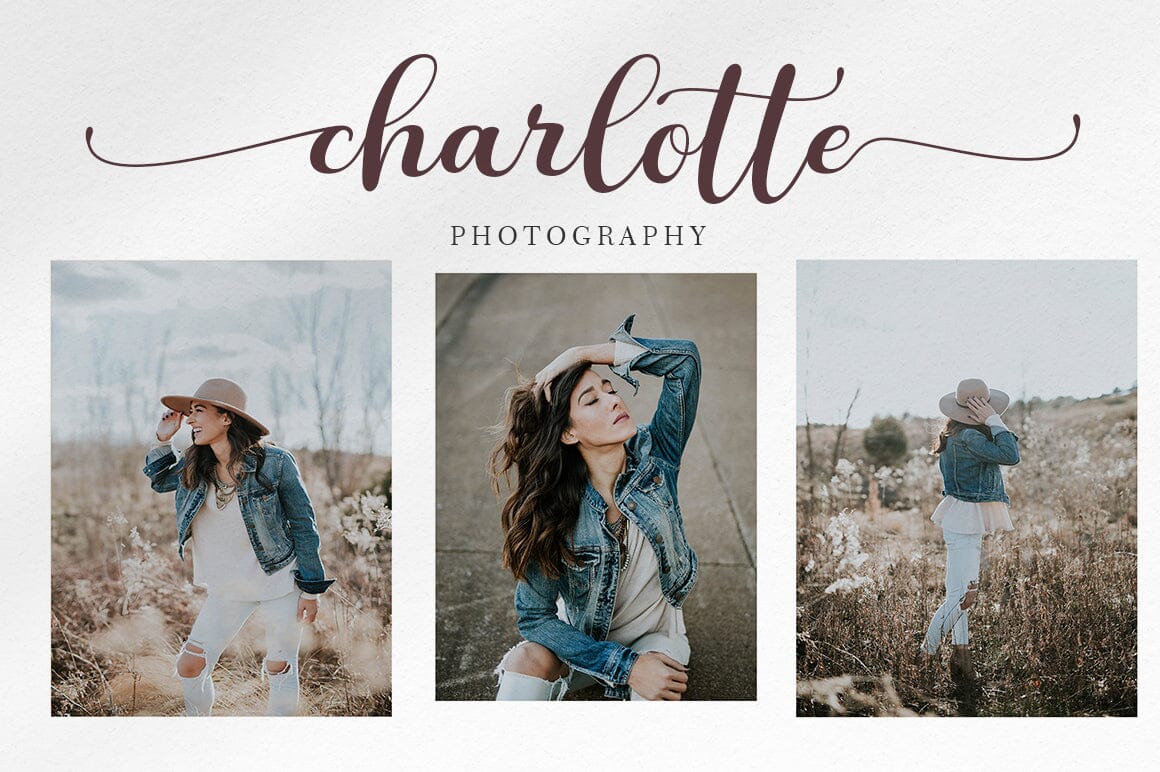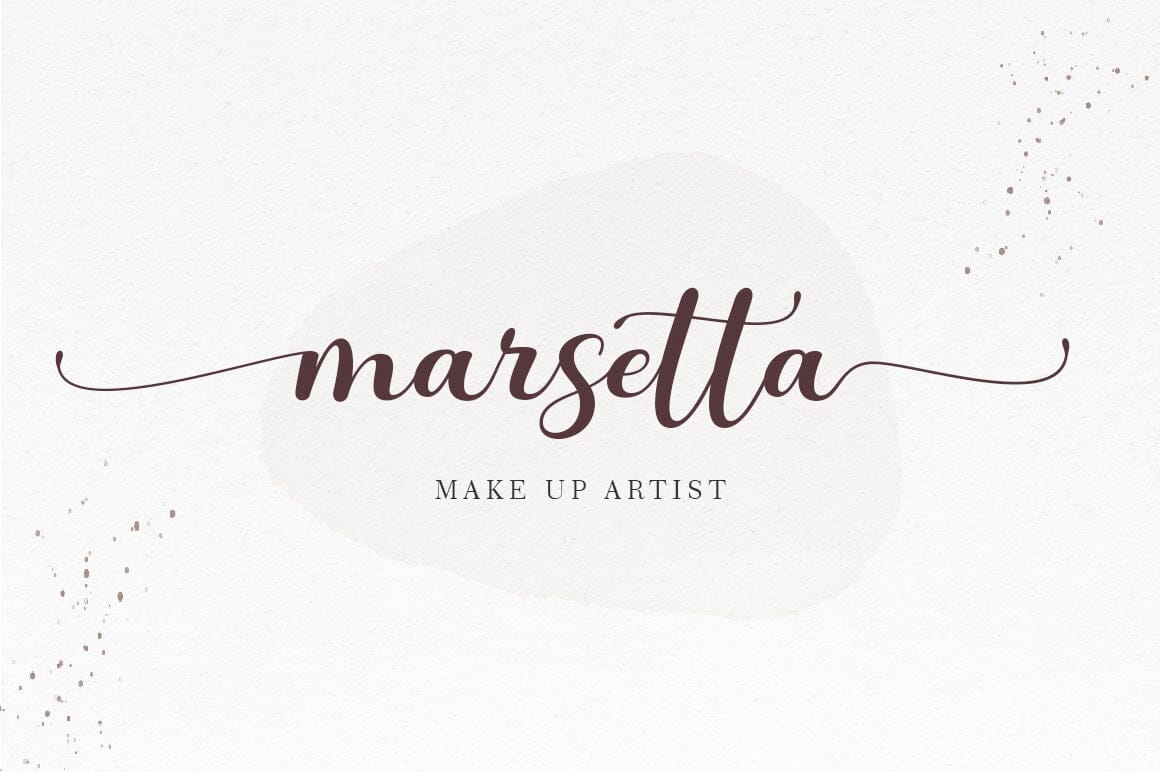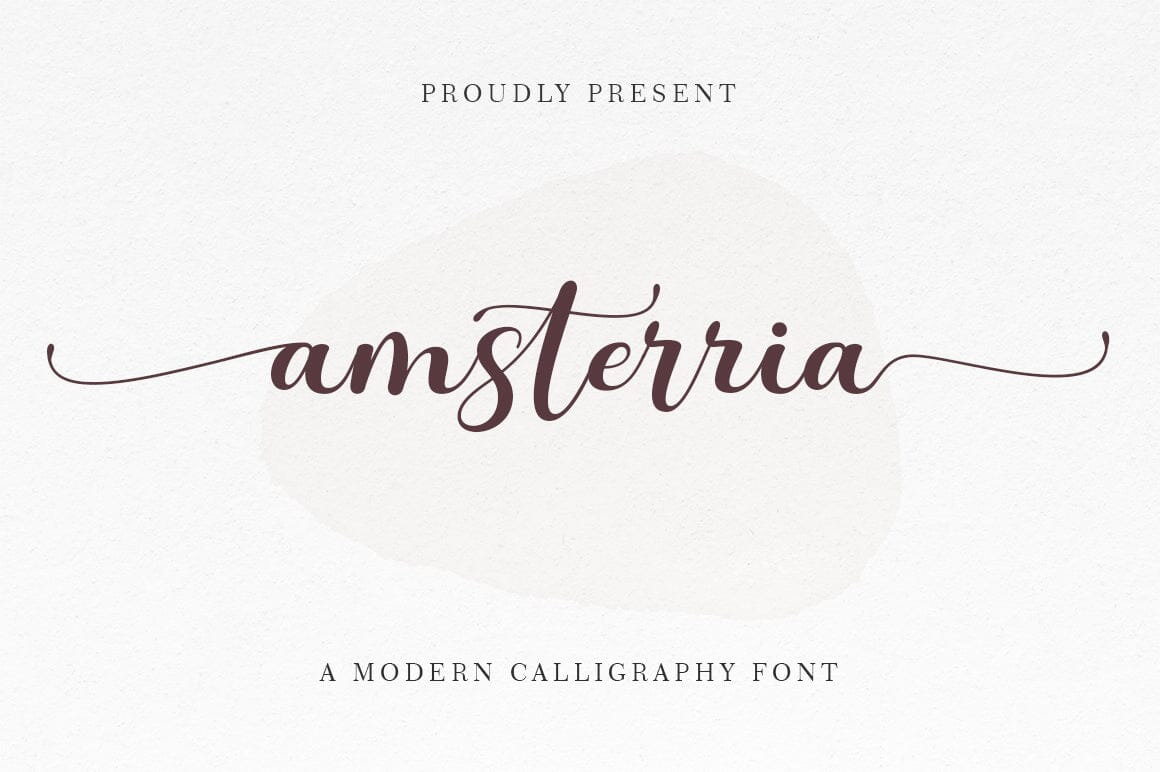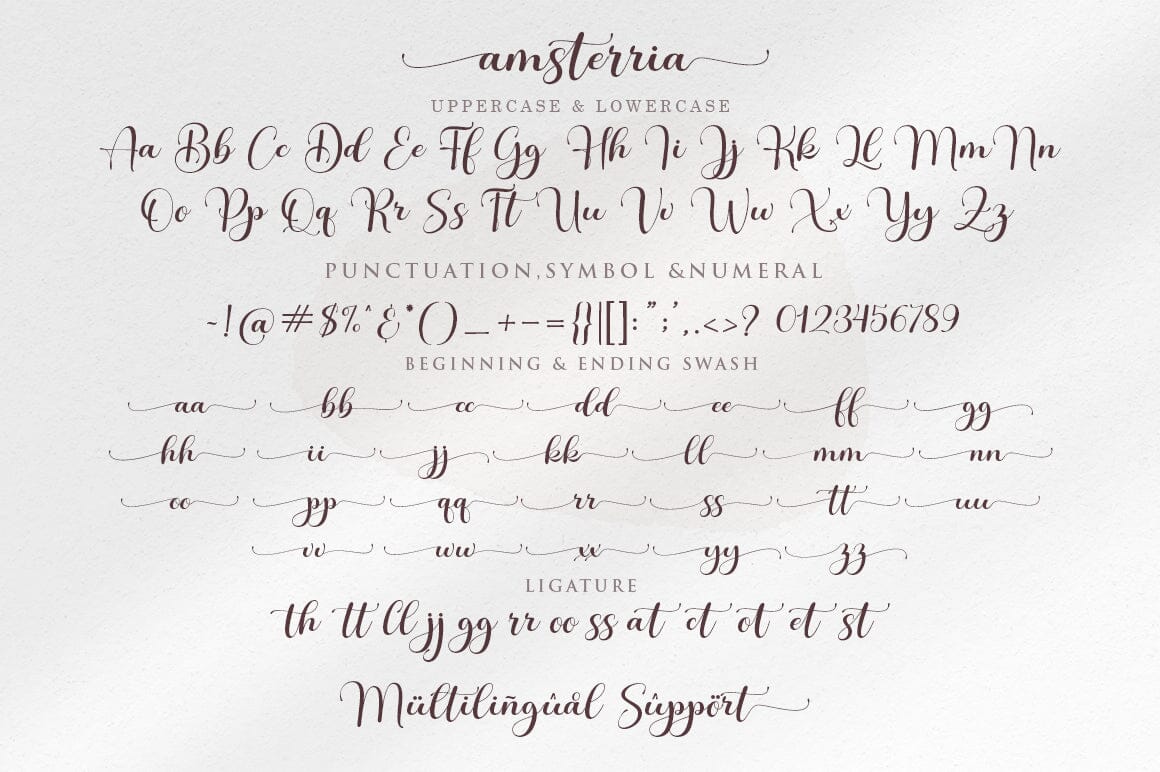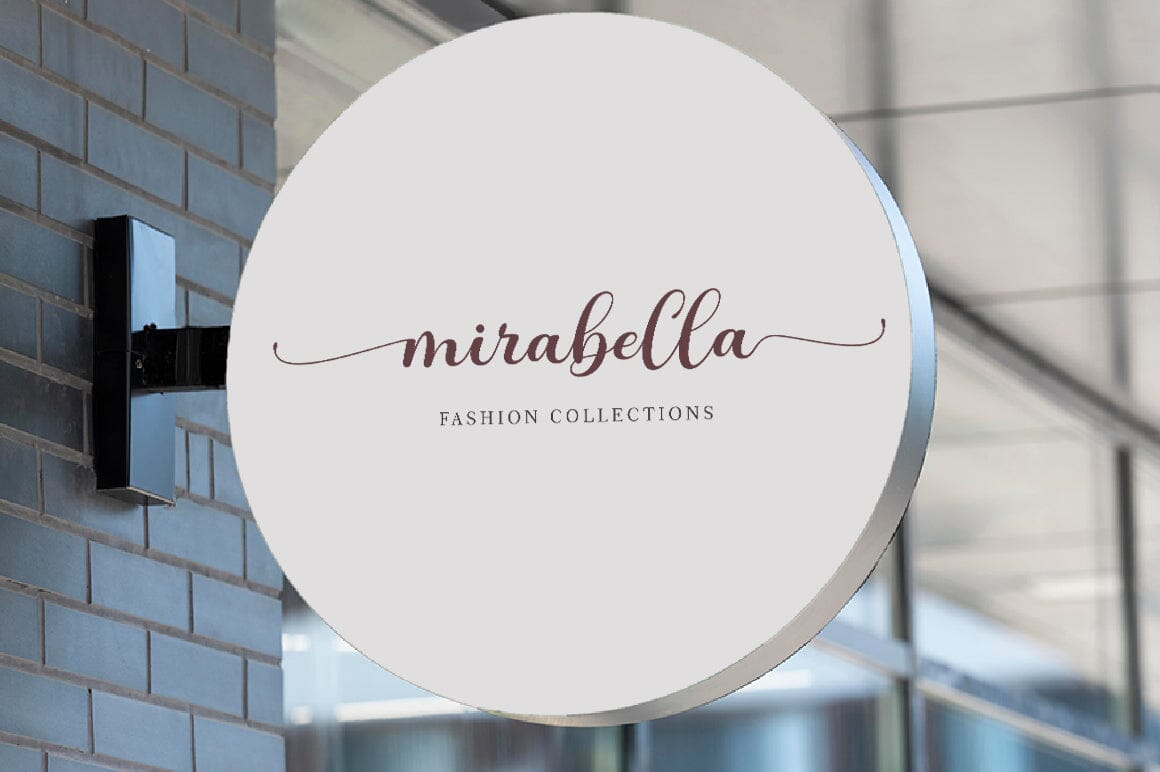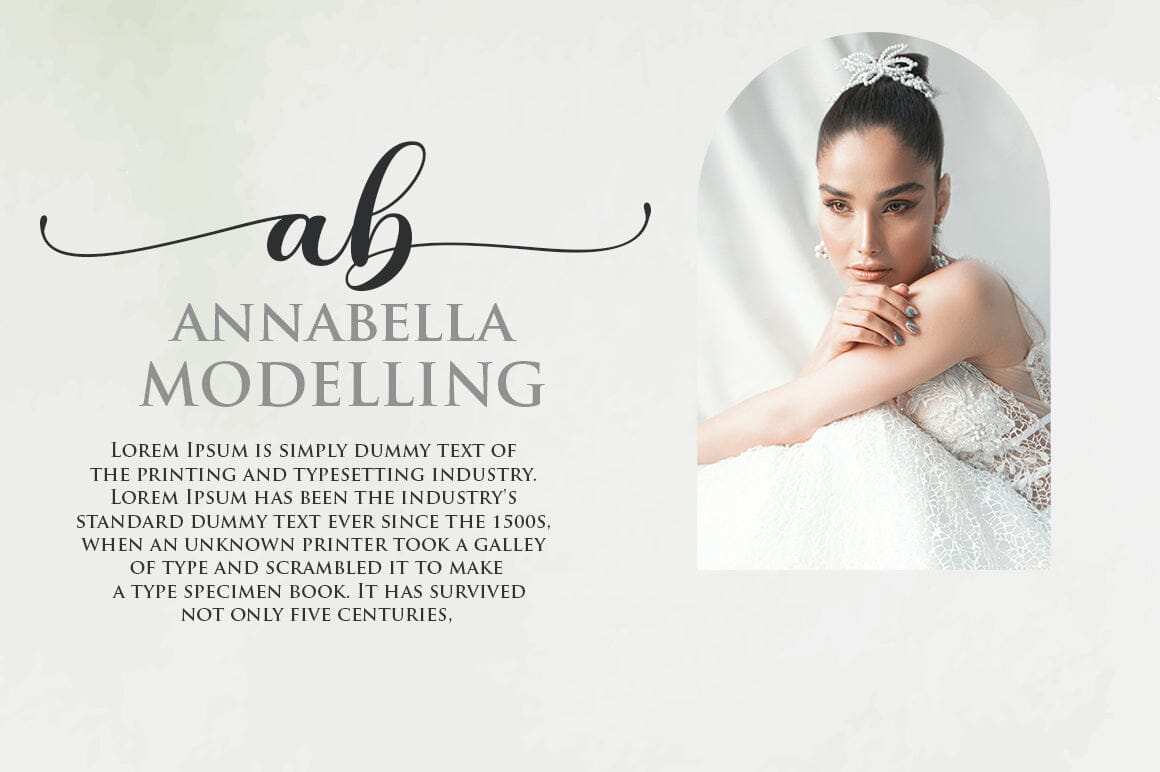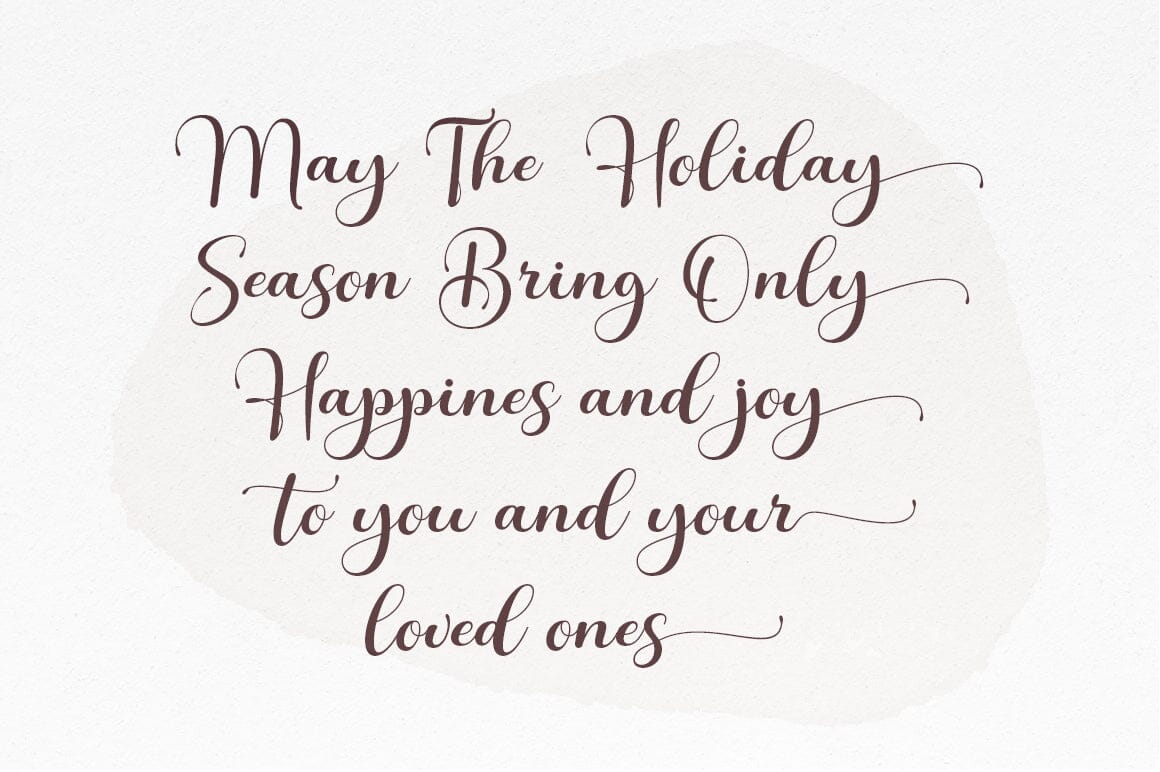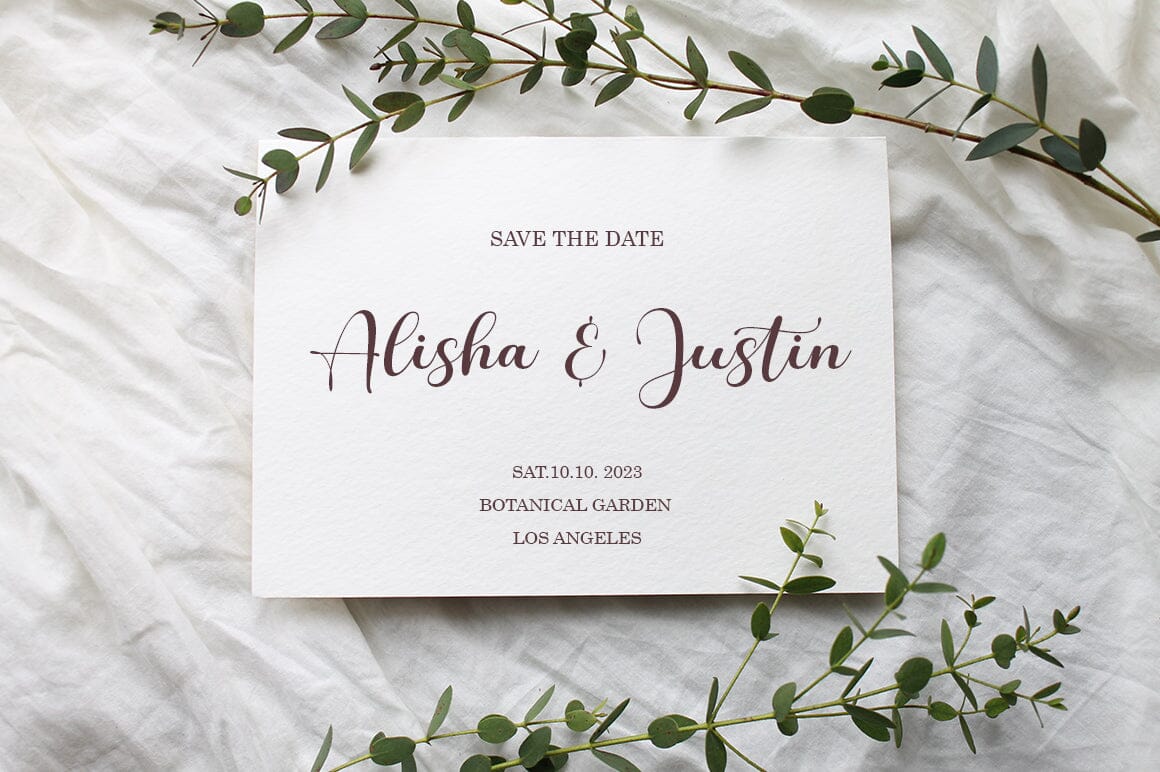
amsterria
About amsterria
amsterria is a beautiful script font with many alternative styles, it looks natural, elegant and perfect for any extraordinary project. amsterria is suitable for various products such as invitations, product packaging, product design, crafters, labels, photography, watermarks, logos & branding. Everything can be accessed using software that supports Opentype, such as Adobe Indesign, Adobe CS Illustrator, Adobe Photoshop CC, and Corel Draw.